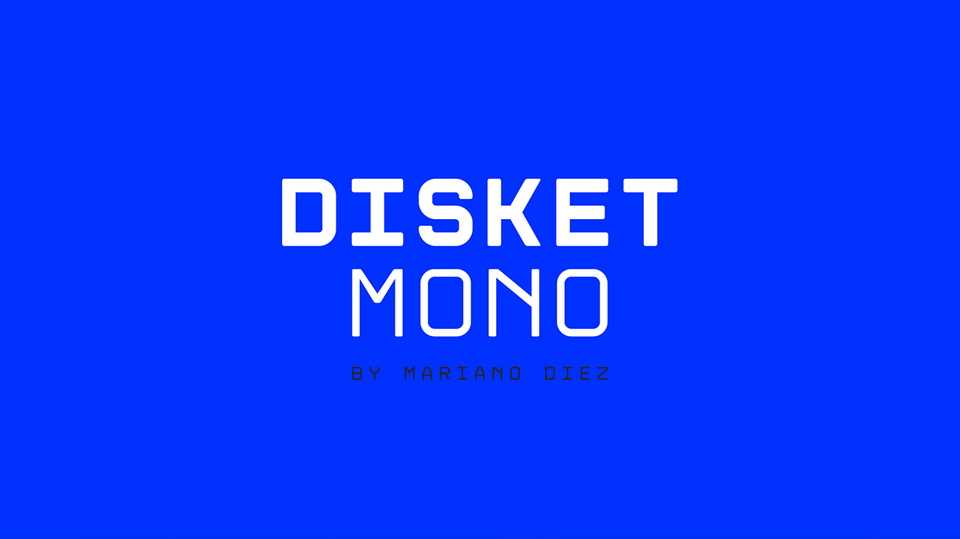
Download Disket Mono typeface, a monospaced display grid based font family in two weights, inspired by geometry, grids and architecture.
Designer: Mariano Diez